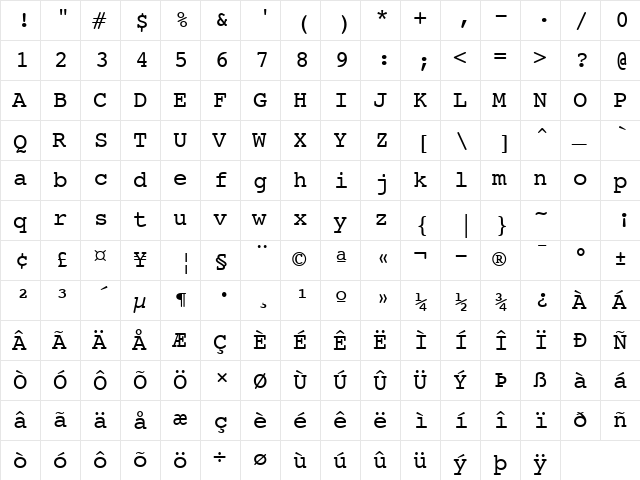
Courier SWA Roman
Design Context for Courier SWA Typeface
Courier SWA uses fixed-width spacing throughout, giving it the structured, systematic character associated with coding environments and technical documentation.
A natural fit for code editors, technical documentation, developer-focused branding, and terminal-inspired UI.